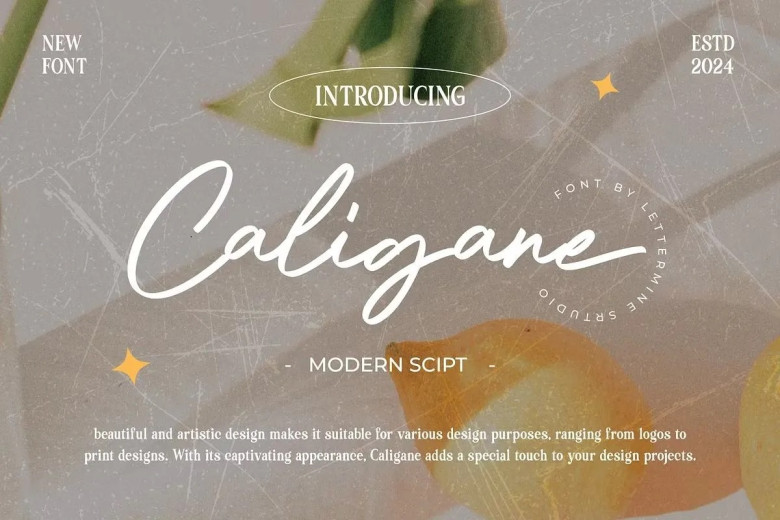
Caligane Font
Caligane is an engaging modern handwritten script typeface created to bring a touch of class and sophistication to any design project. Boasting clean lines and graceful curves, Caligane seamlessly marries modernity with timeless elegance for an exceptional result.
Caligane Handwritten Script Font